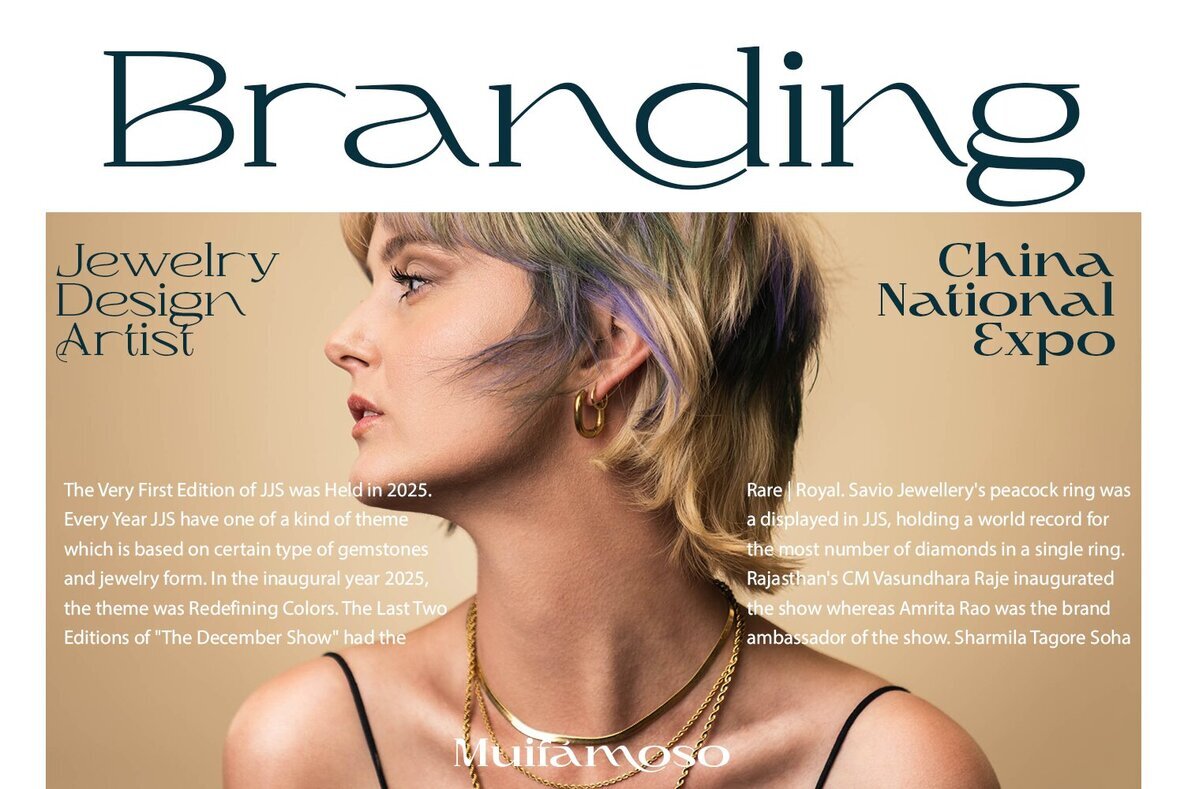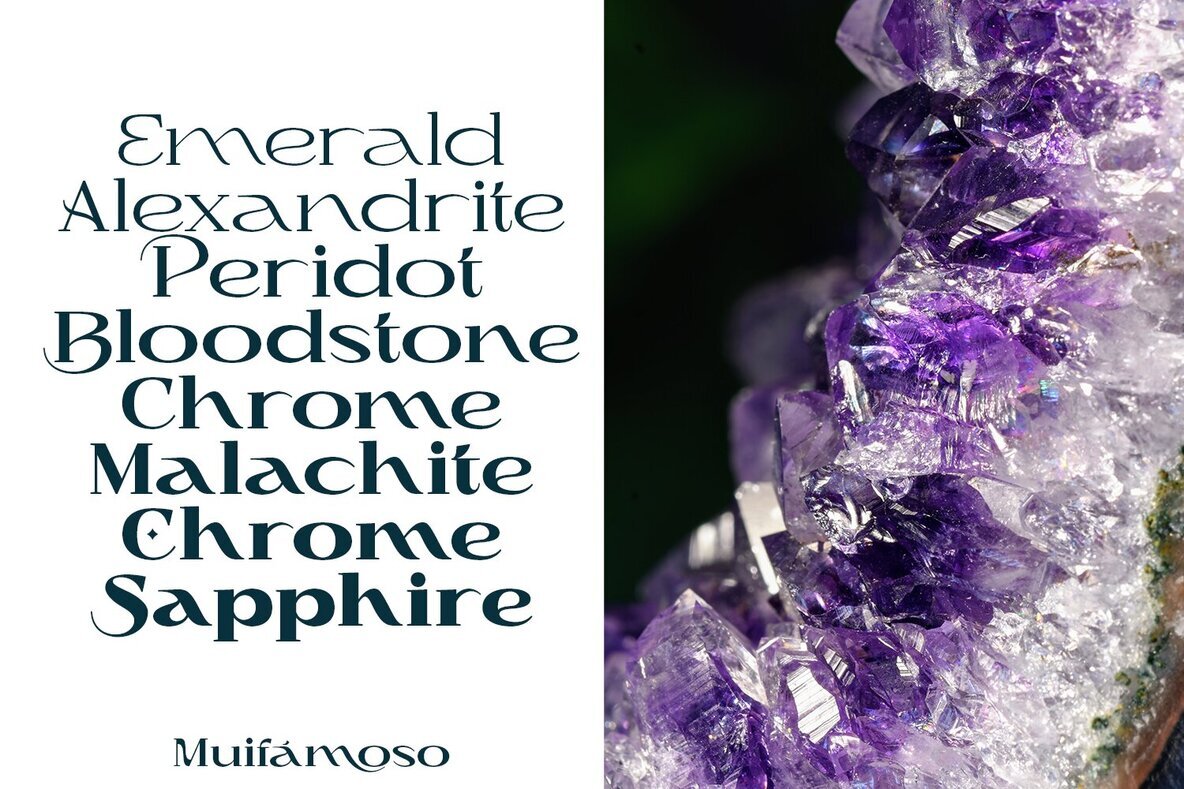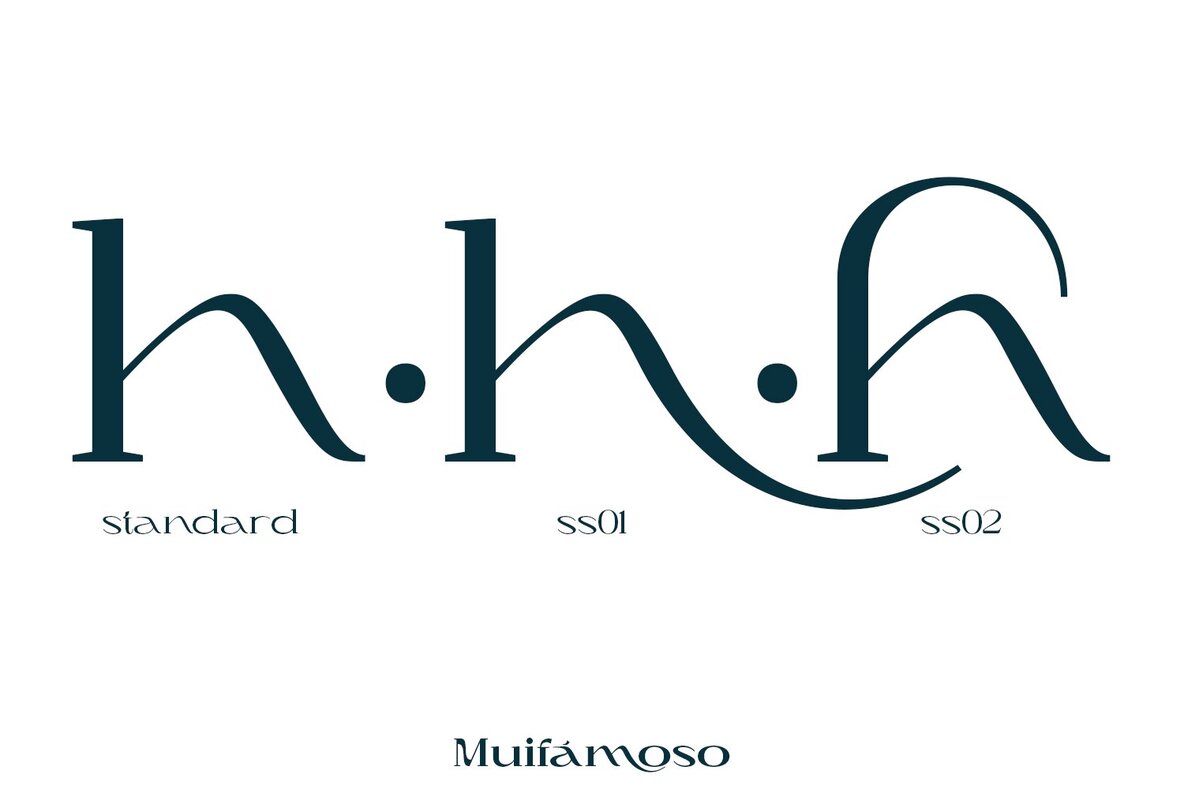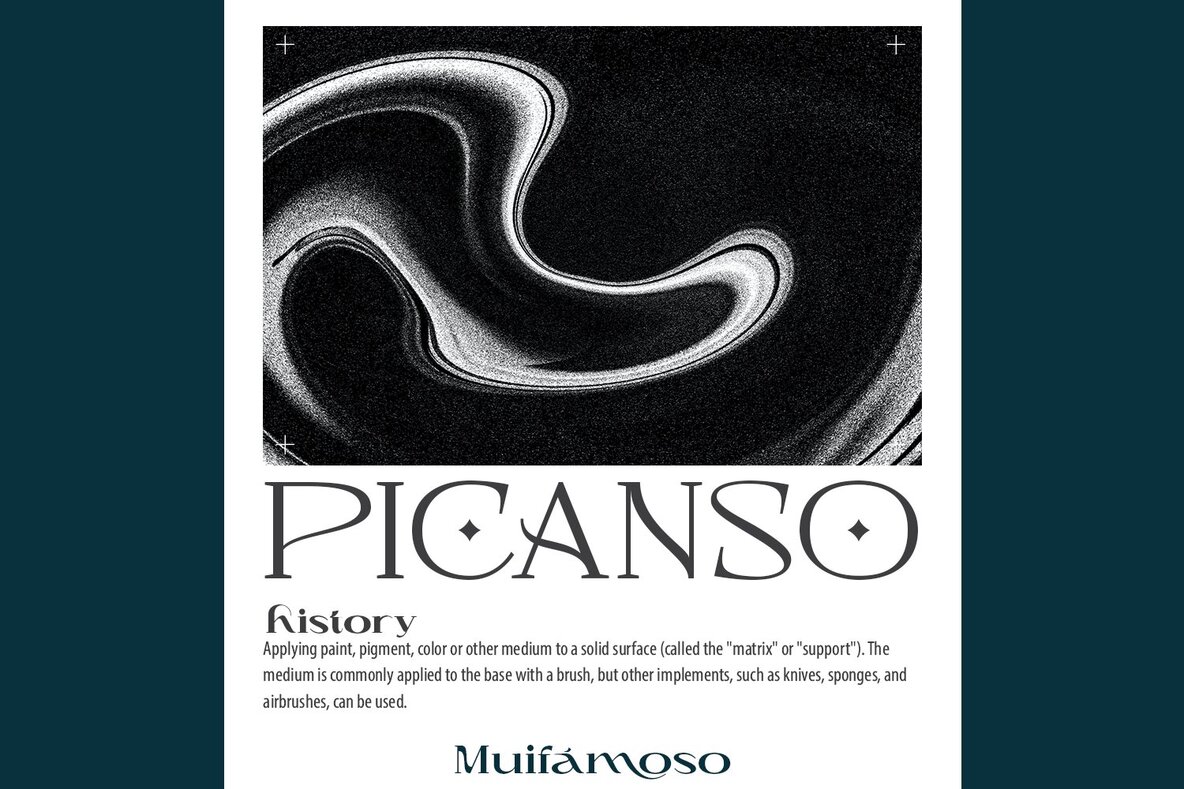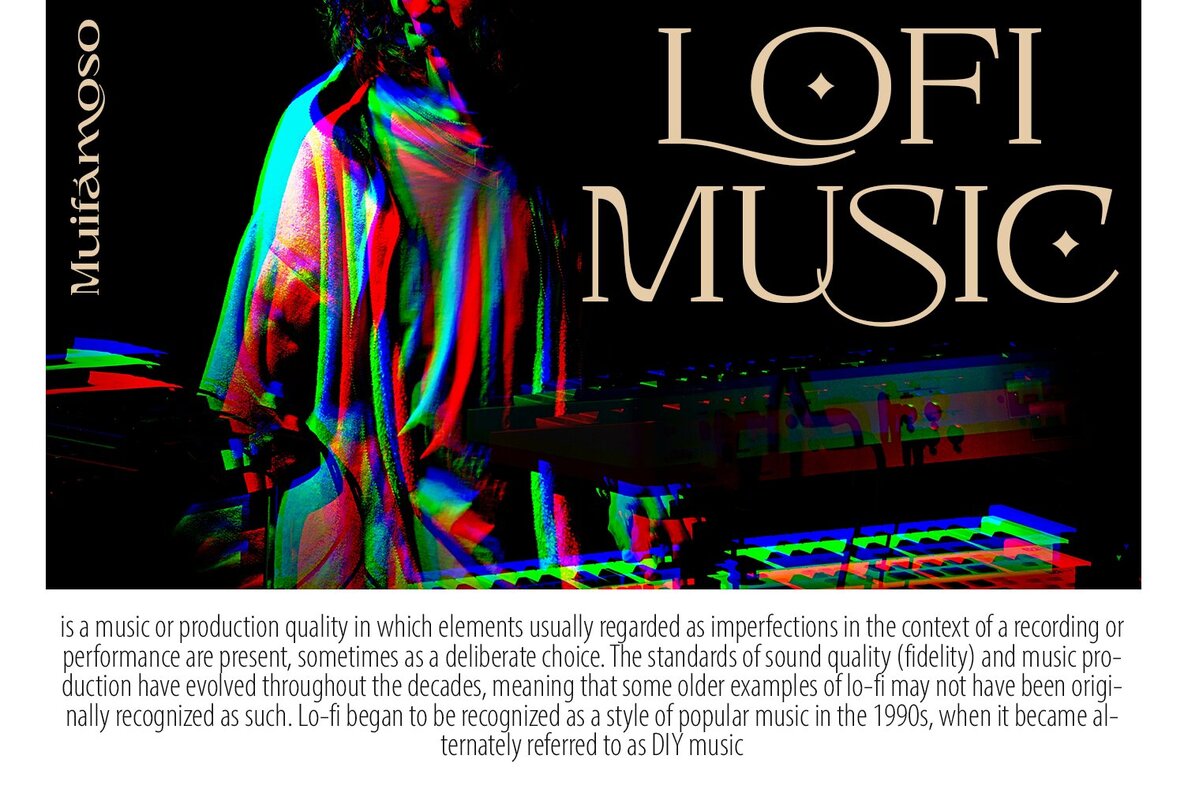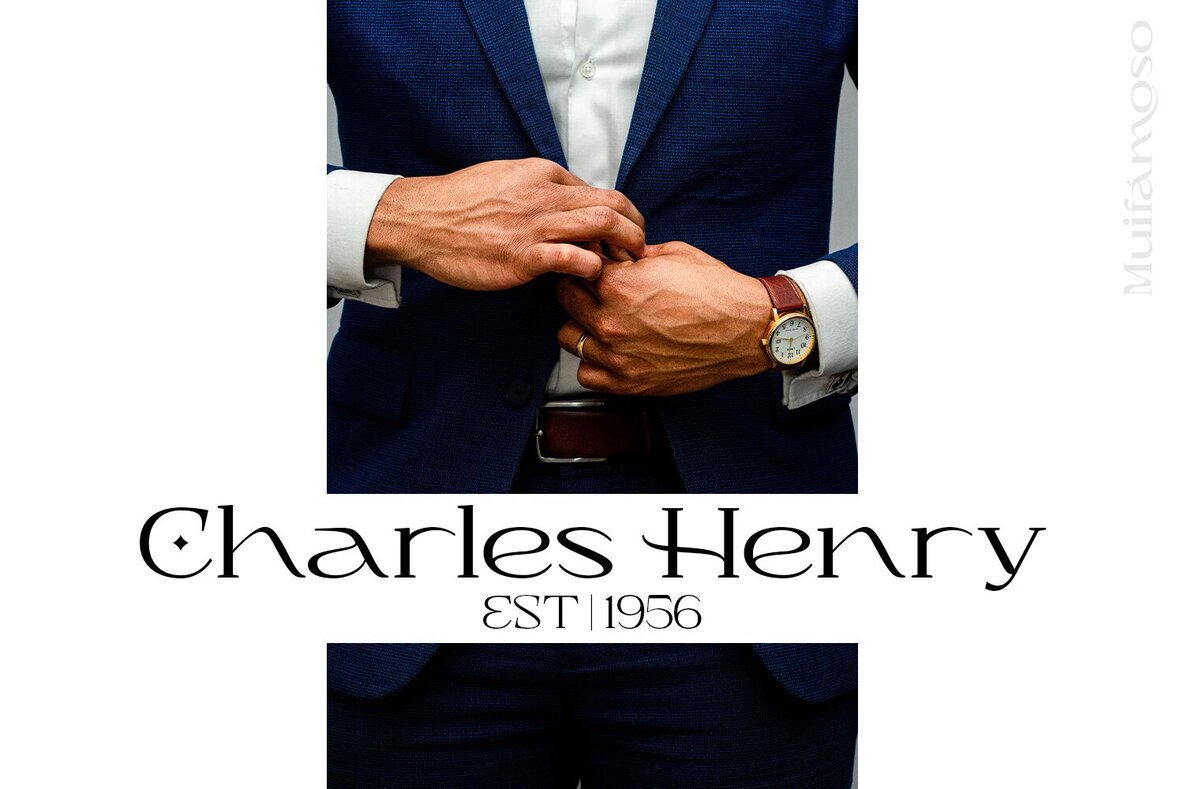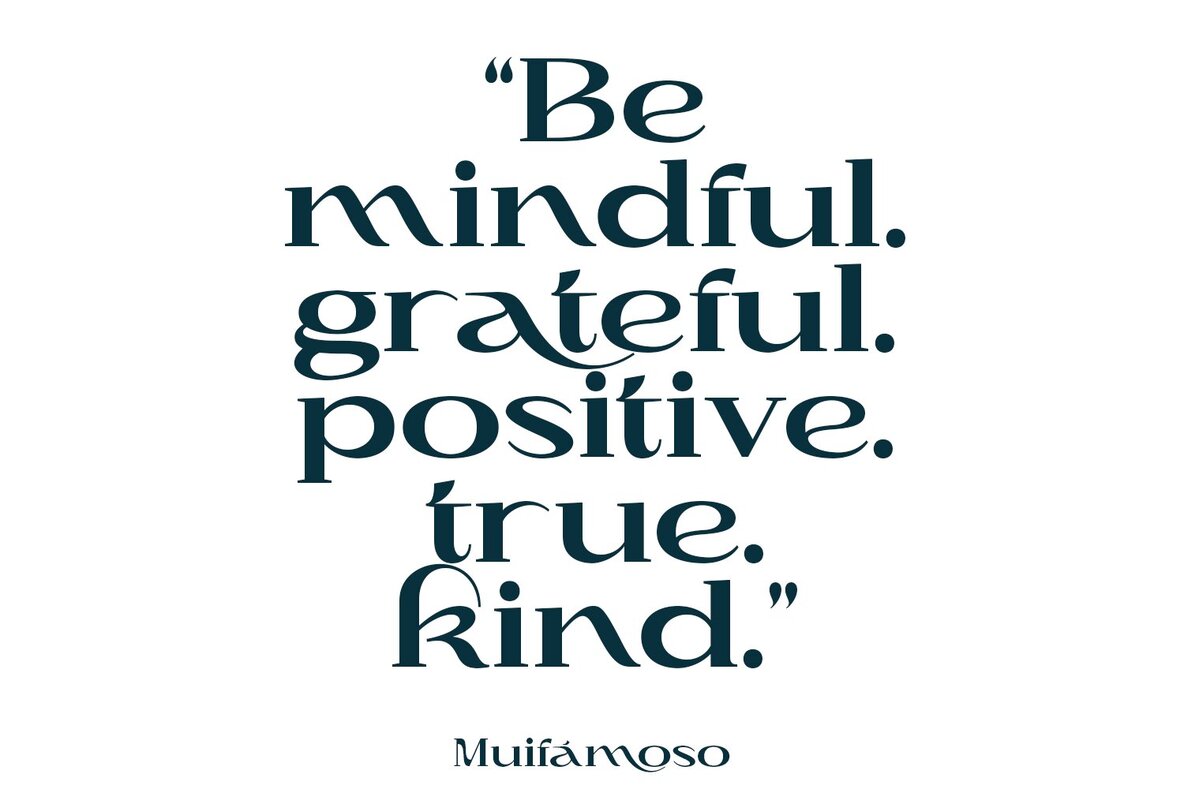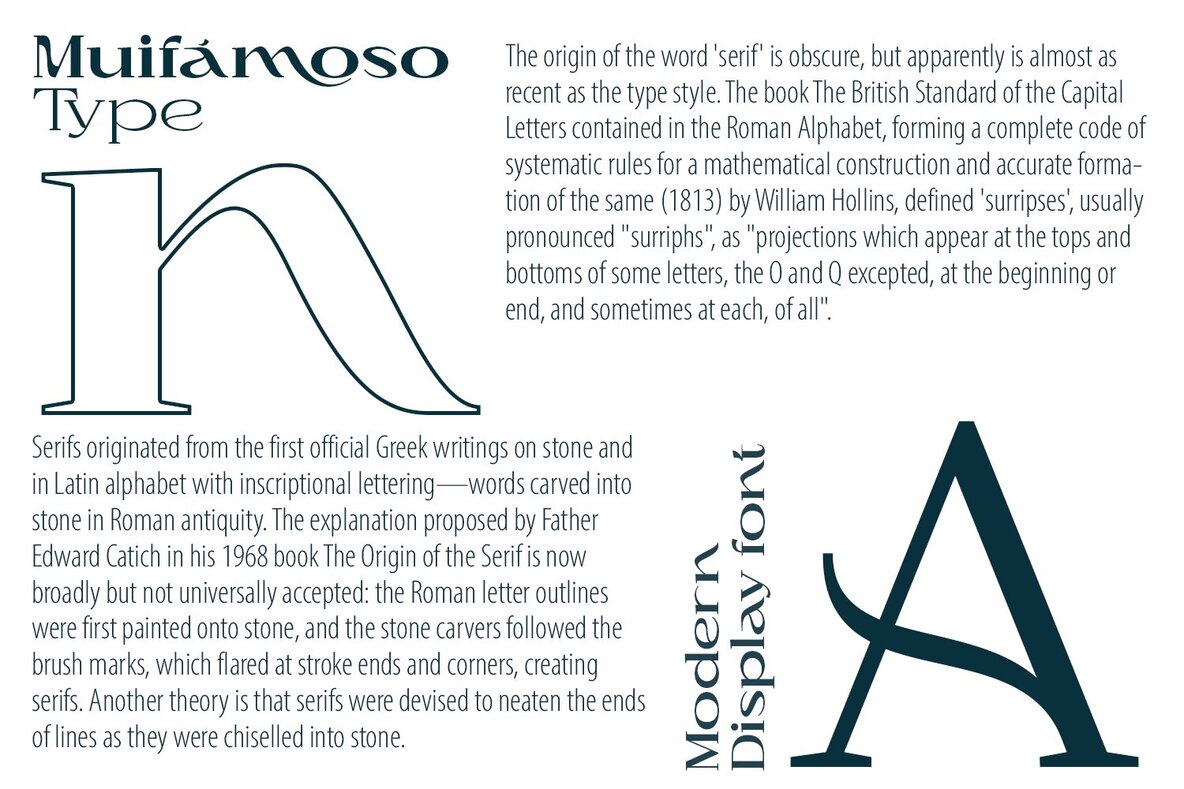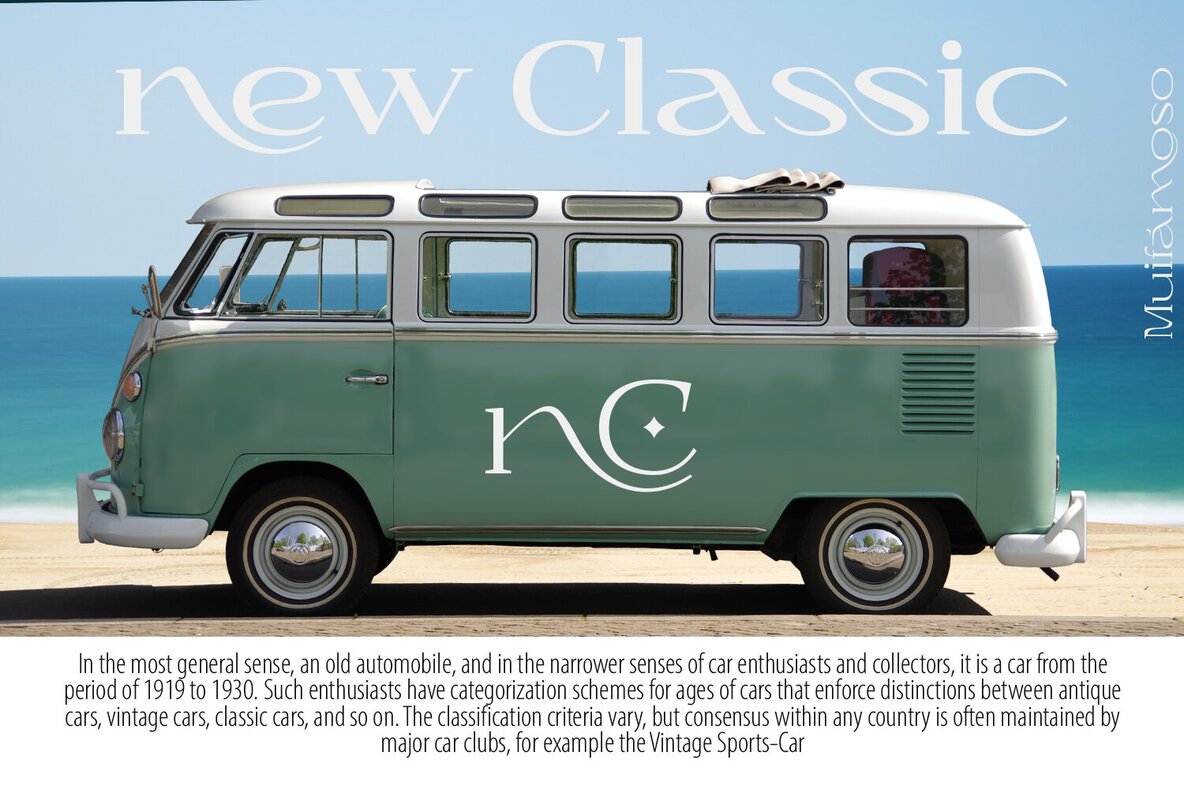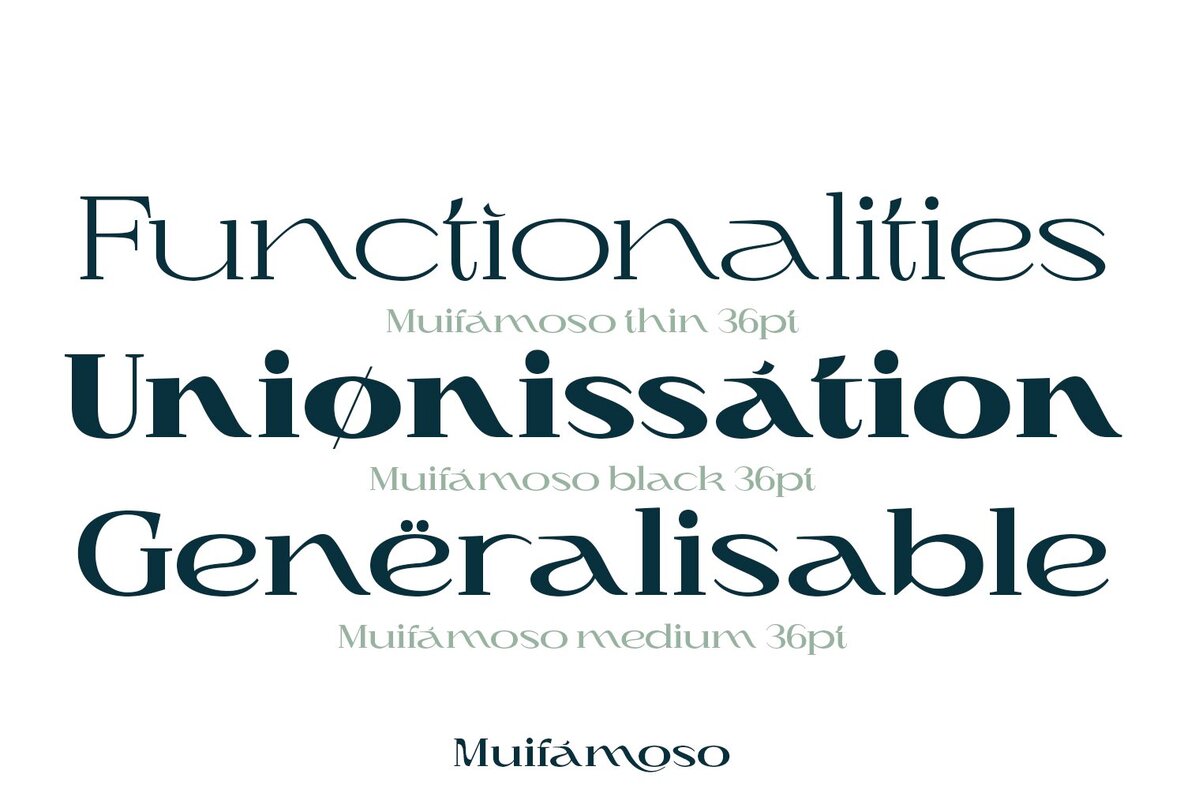
Muifamoso Font
Muifamoso designed to become a elegant, this font has the potential to bring each of your creative ideas to the highest level. Combine with ligatures and special alternative glyphs so you can create a lots with layouts and compositions. Muifamoso brings a touch of luxury and bespoke custom typography to logos, websites, social media quotes, wedding branding, and more.